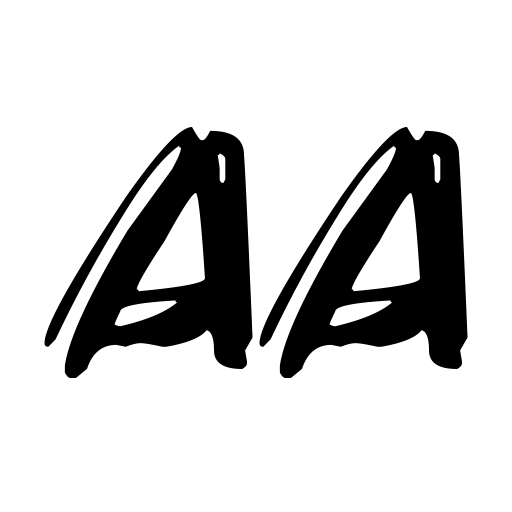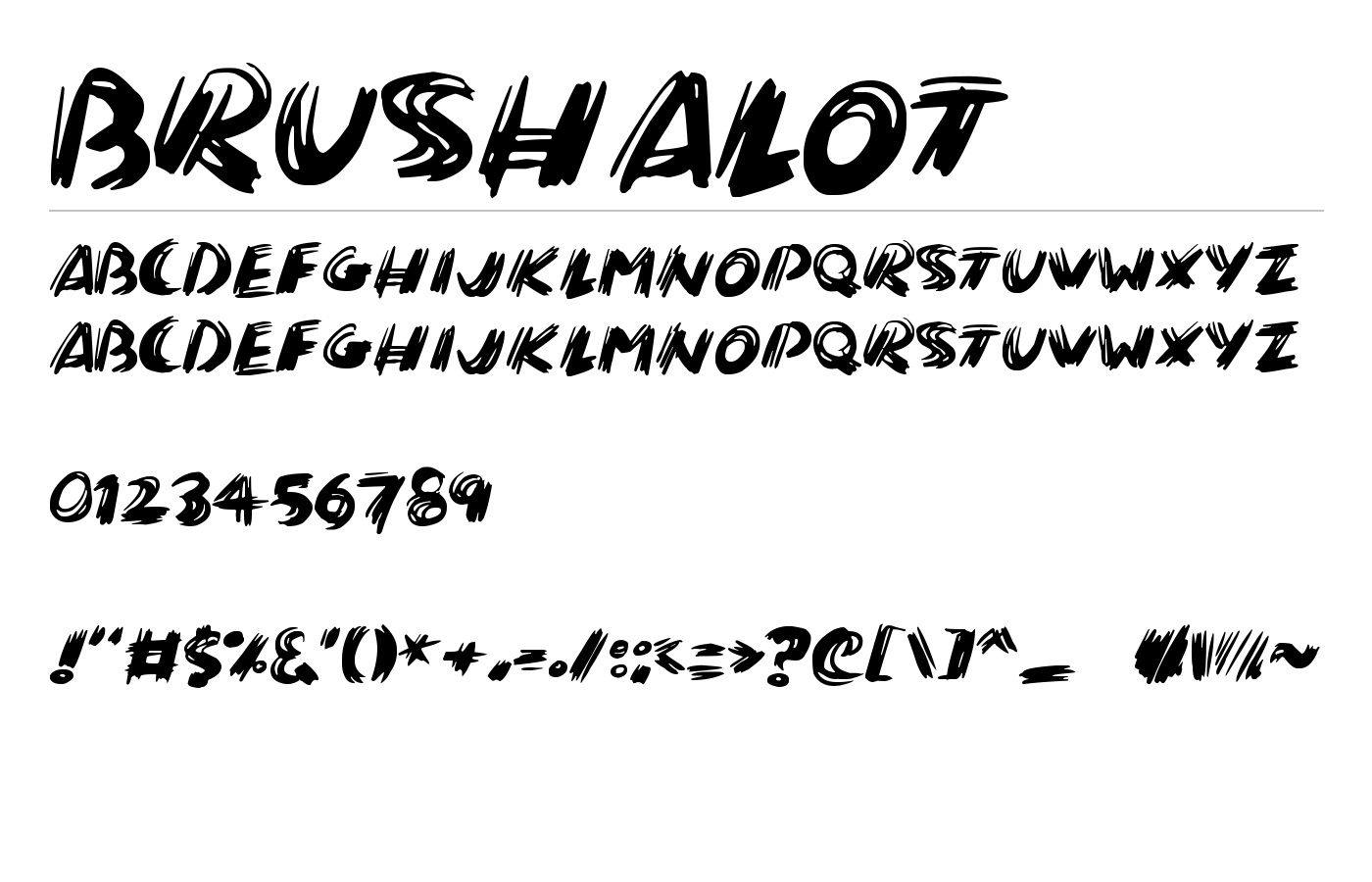
Brushalot is a bold, expressive brush script font with dynamic, textured strokes that mimic hand-painted lettering. Its energetic style and rough edges give it a casual, artistic vibe perfect for creative projects, posters, and brands seeking a lively, handcrafted appearance. This font works best in headlines and display uses where a bold, informal impact is desired.
Brushalot Font
About Brushalot Font